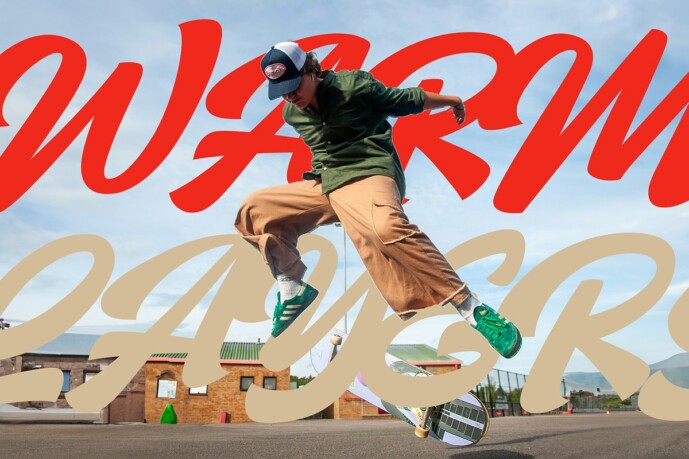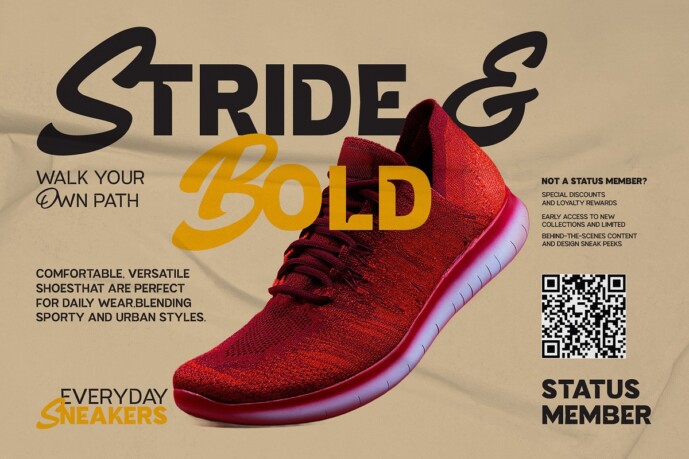
Decider Font Family
Decider Font, a captivating hybrid font that masterfully blends the expressive strokes of a brush with the clean precision of sans serif design. This unique combination creates a font that’s both dynamic and refined, perfect for projects that demand versatility and style. Made in 9 weight options, Decider adapts effortlessly to a wide range of applications. Its harmonious design strikes the perfect balance between artistic flair and modern simplicity, ensuring your designs leave a lasting impression.